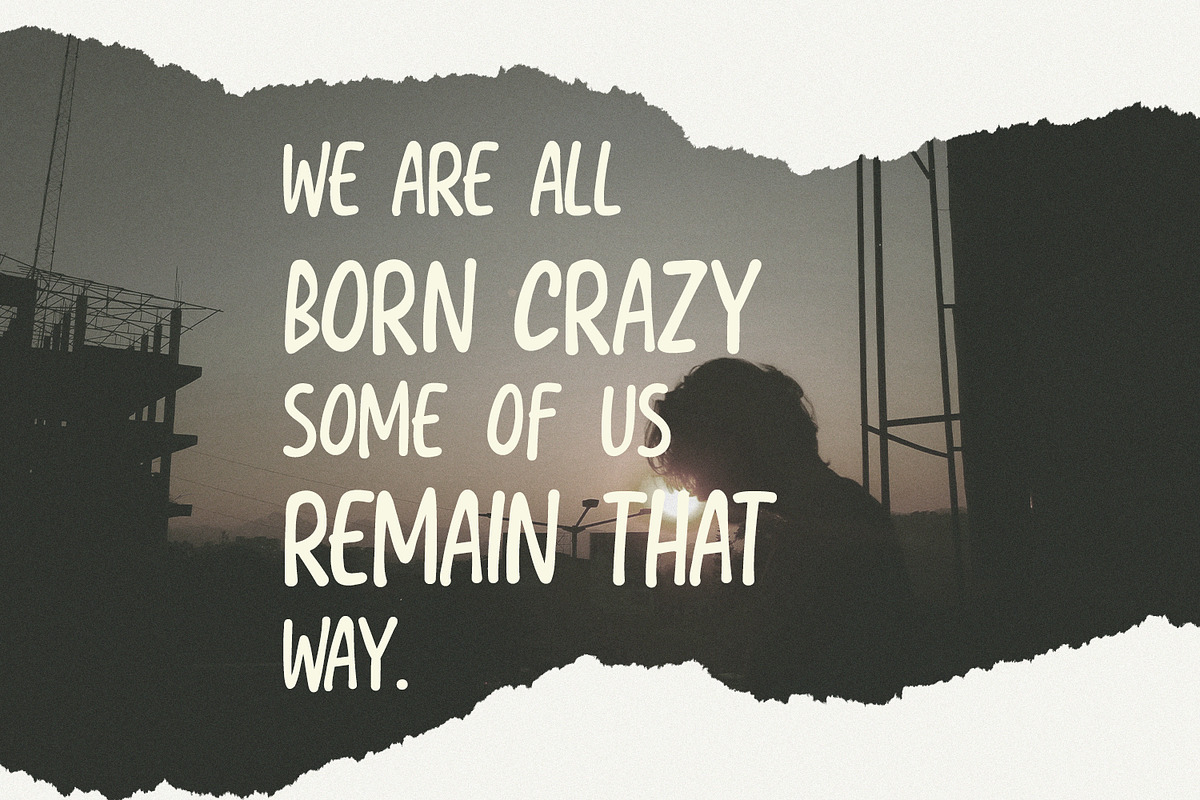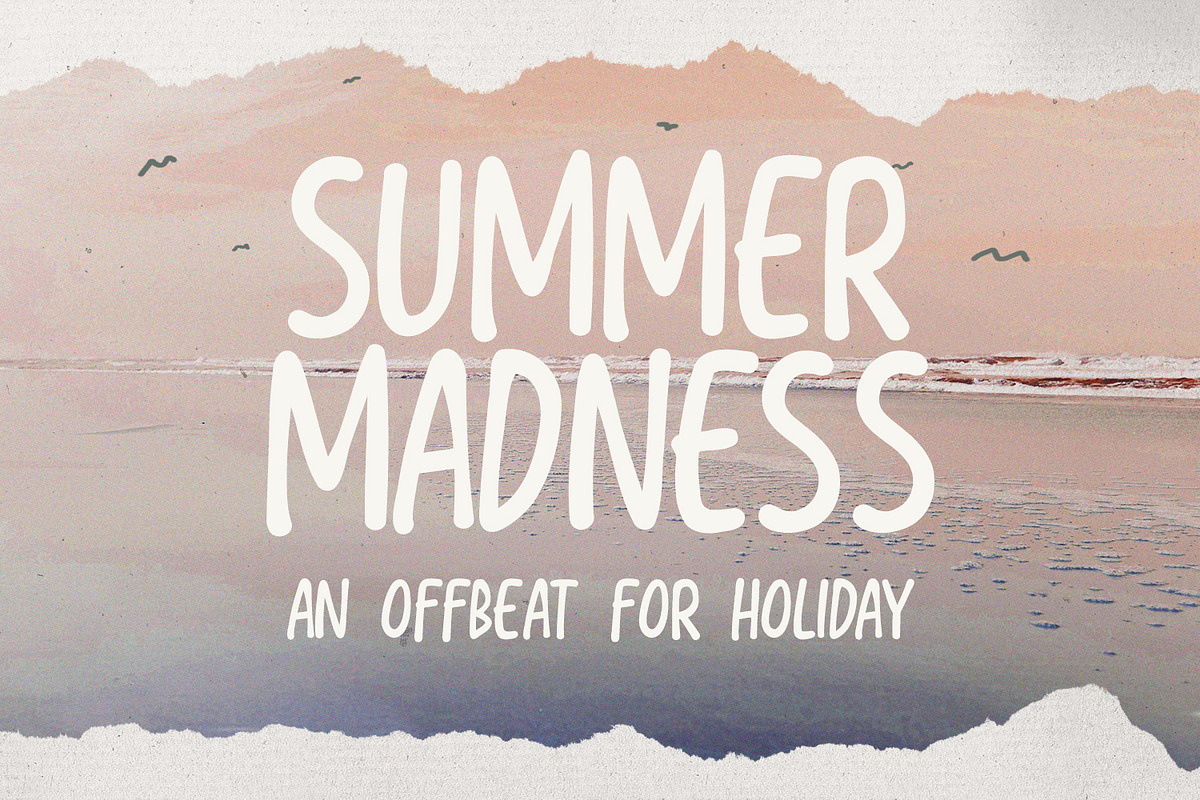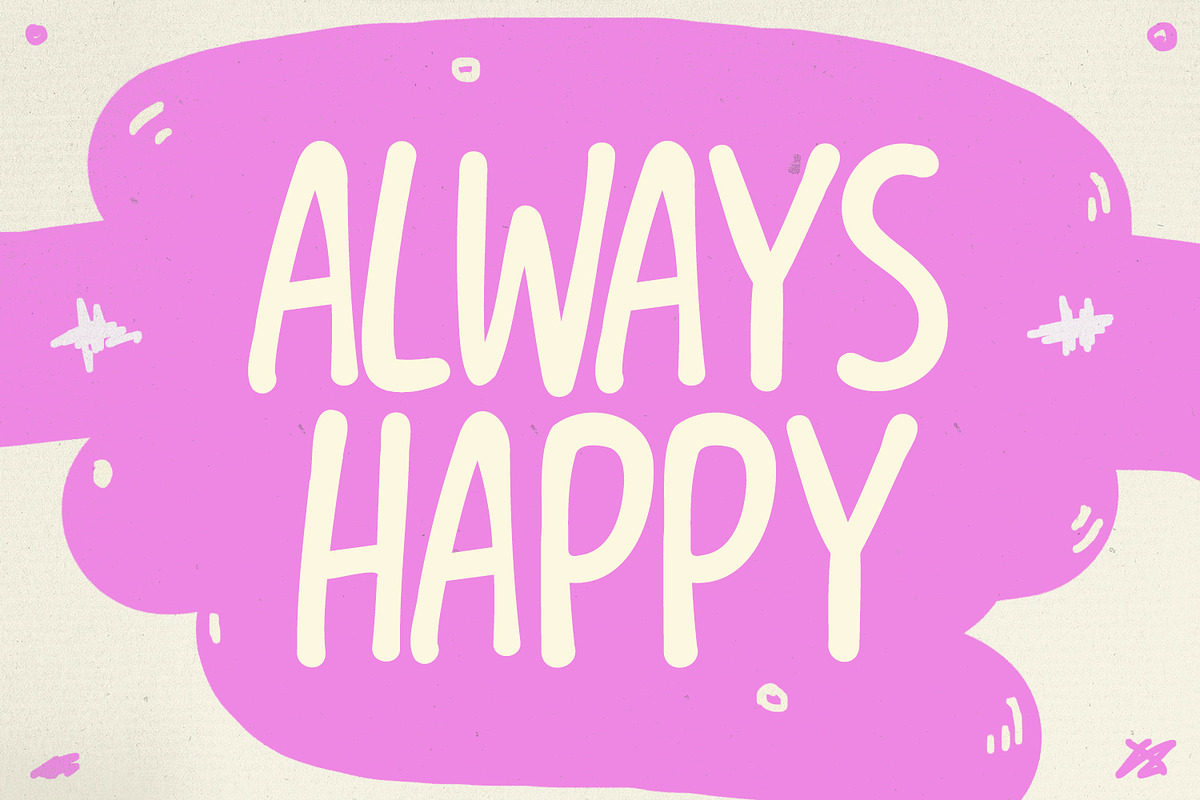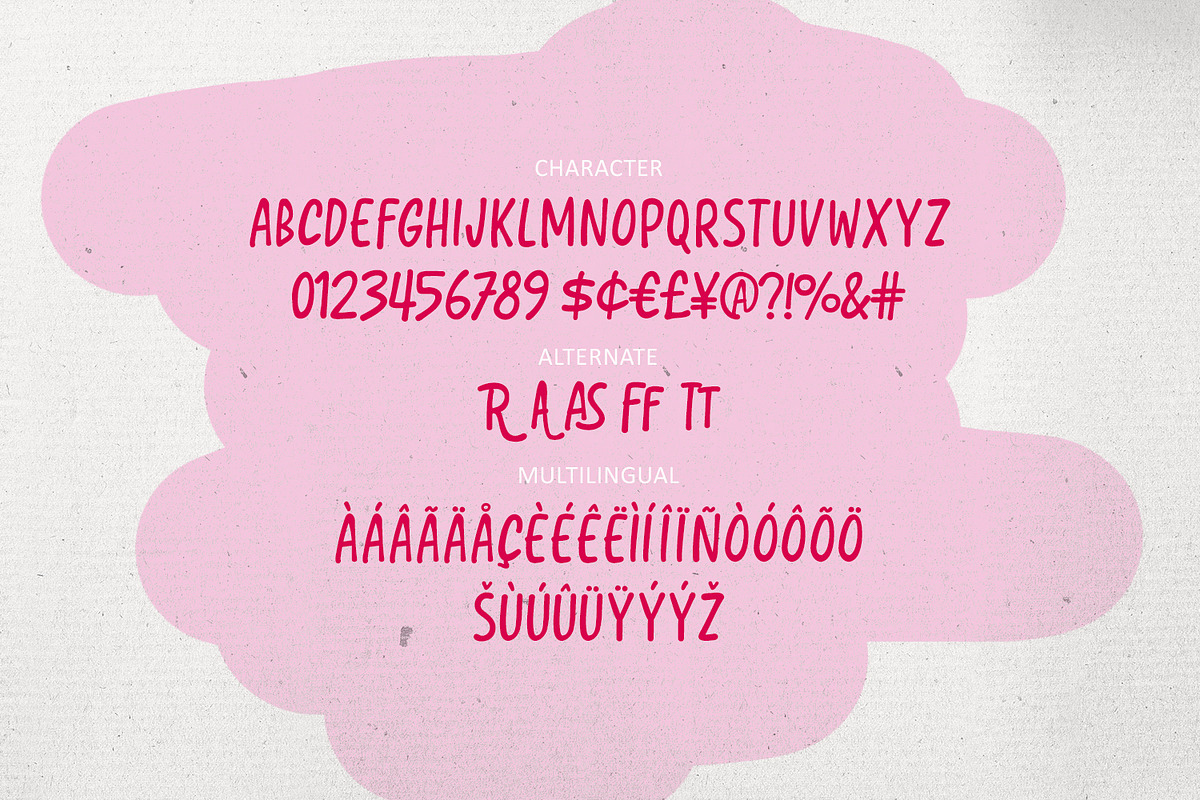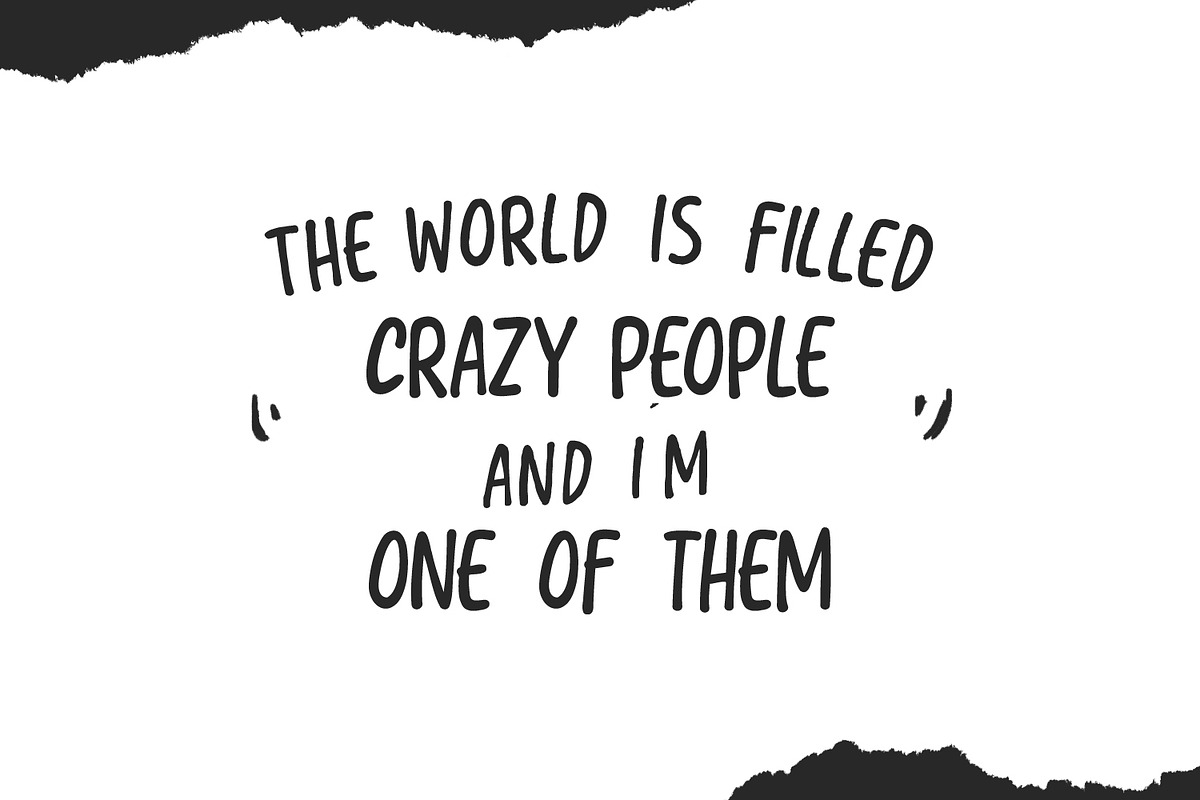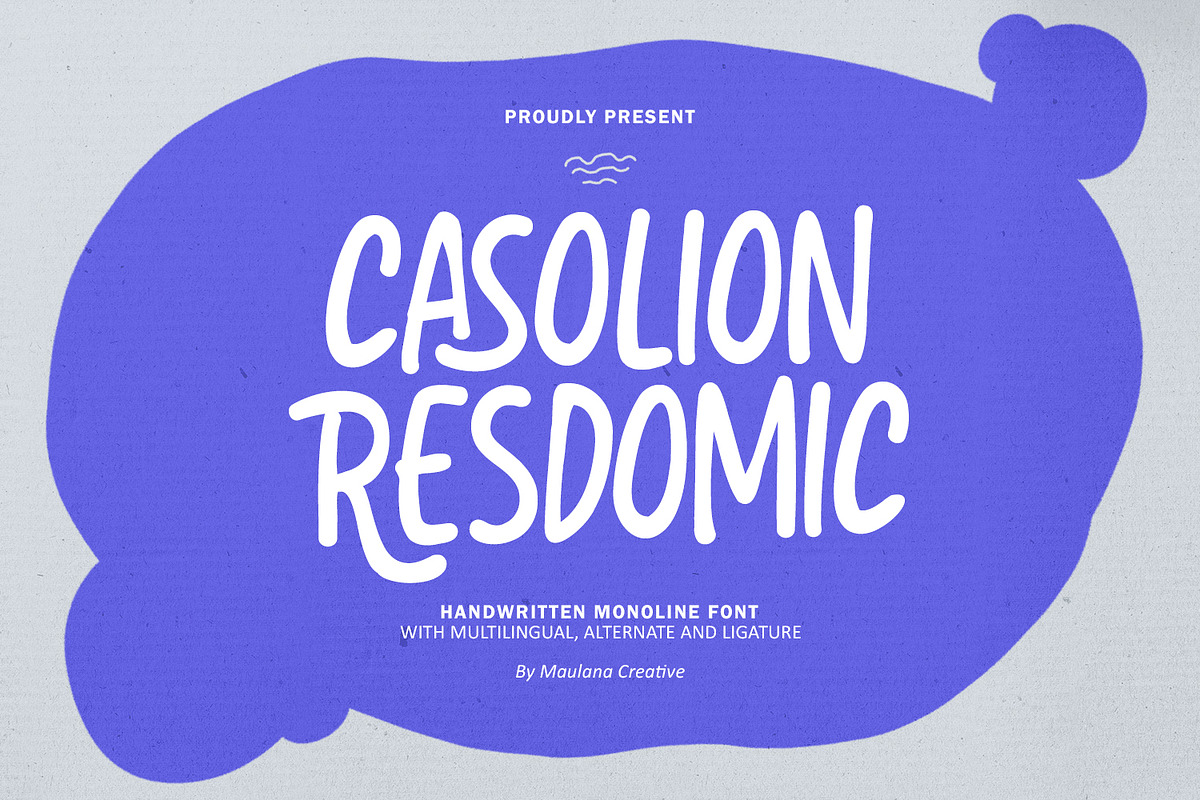
Casolion Resdomic Playful Monoline
Introducing Casolion Resdomic, a wonderfully playful and organic handwritten monoline font designed to inject a dose of personality and fun into your designs. With its charming, slightly irregular lines and rounded, casual shapes, Casolion Resdomic captures the feel of genuine, hand-drawn lettering.
Perfect for projects that need a friendly and quirky touch, this font shines in branding, product packaging, posters, t-shirt designs, social media graphics, quotes, and children's projects.
- Handwritten Monoline Style: Gives a clean, yet authentically handmade look.
- Full Character Set: Includes uppercase, numbers, and standard punctuation.
- Multilingual Support: Extensive support for various European languages.
- Alternate Characters & Ligatures: Provides extra options for customization and a natural flow.
Bring your designs to life with the irresistible charm and joyful spirit of Casolion Resdomic!